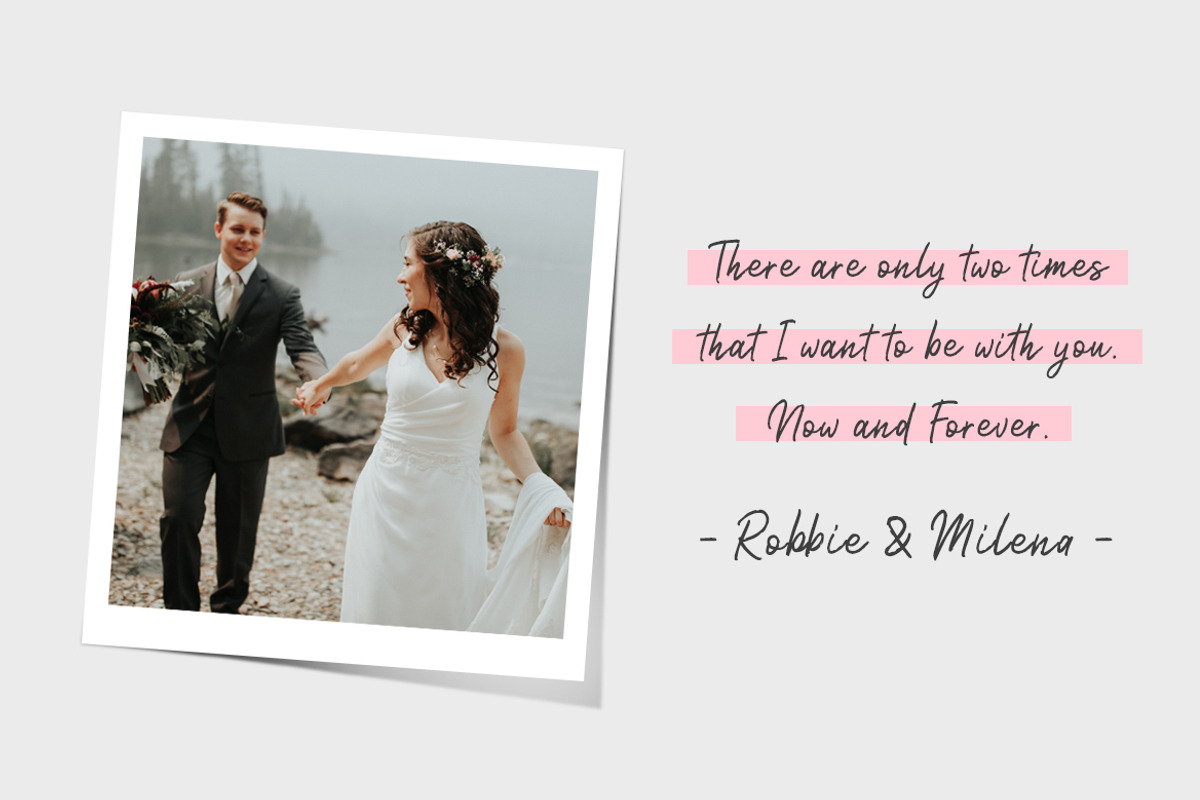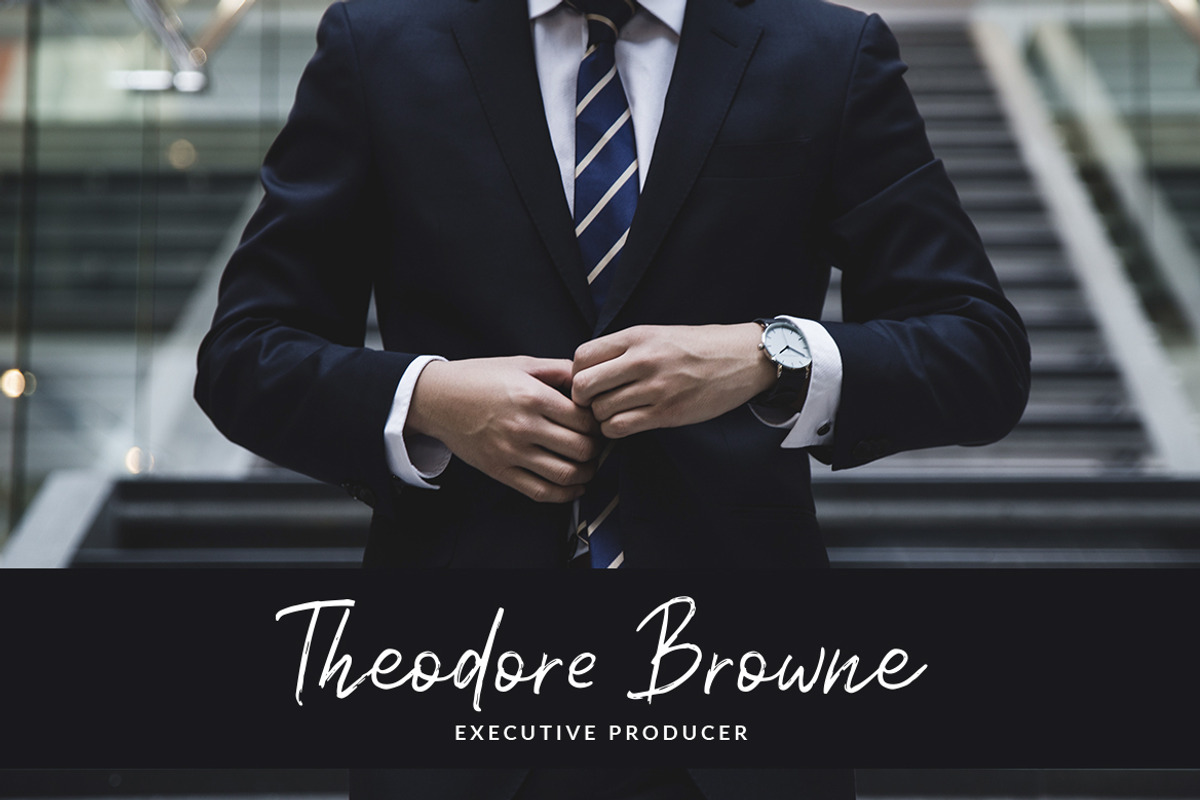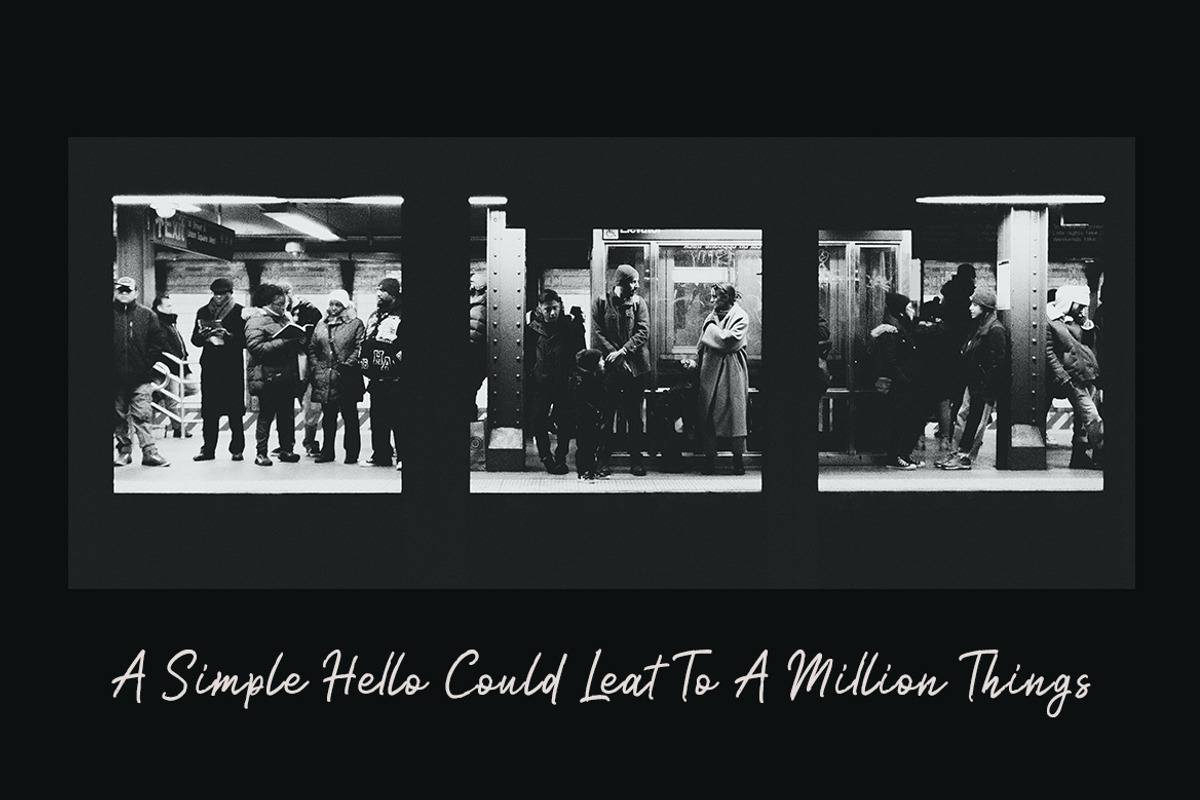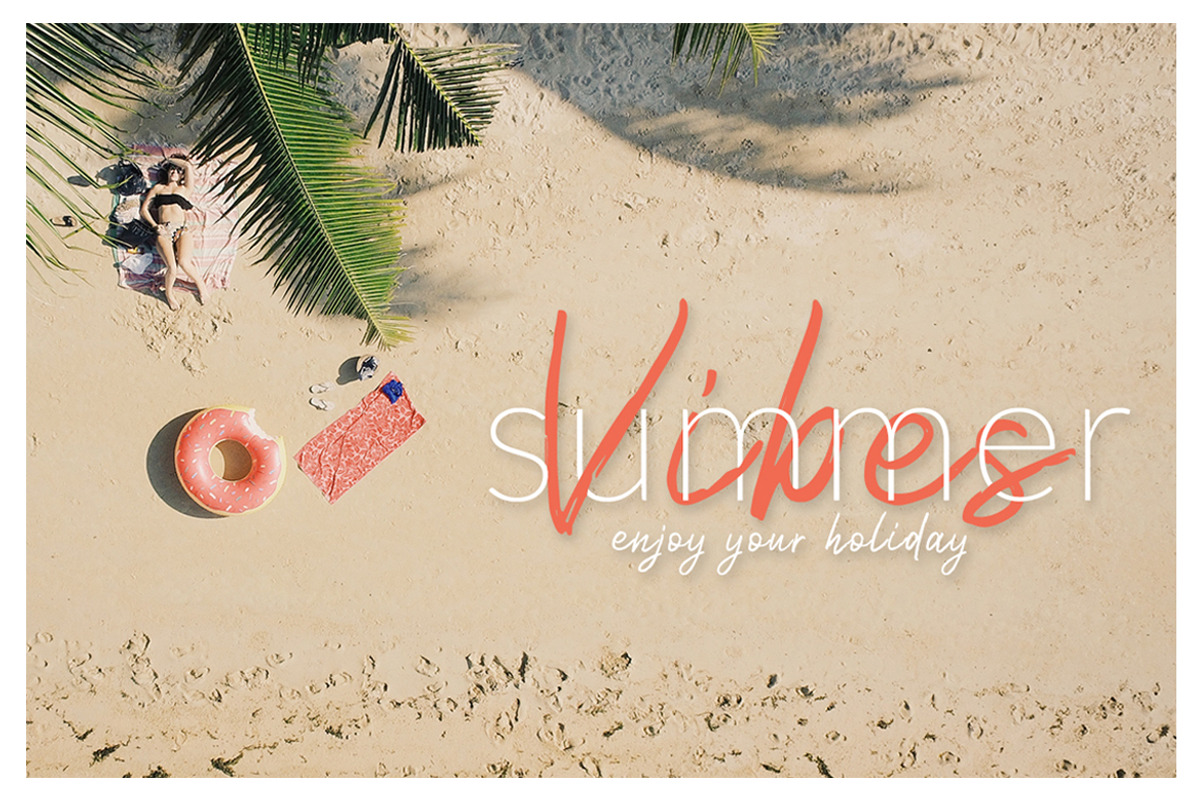
Nicollast Handwritten Brush Font
Introducing Nicollast Handwritten Brush Font, script with a natural dry brush strokes make it beautiful, and the stroke of hand quickly.
Nicollast is perfect for signature, branding, wedding, fashion, photography title, poster, social media, ad banner, book cover, packaging, handwritten quotes, greeting cards and advertising. You can create more easily with alternatives to each letter and make it as if you wrote it yourself.
Why Nicollast Handwritten Brush Font is worth a look
Nicollast Handwritten Brush Font by Weape Studio fits naturally into Branding, posters, packaging, typography.